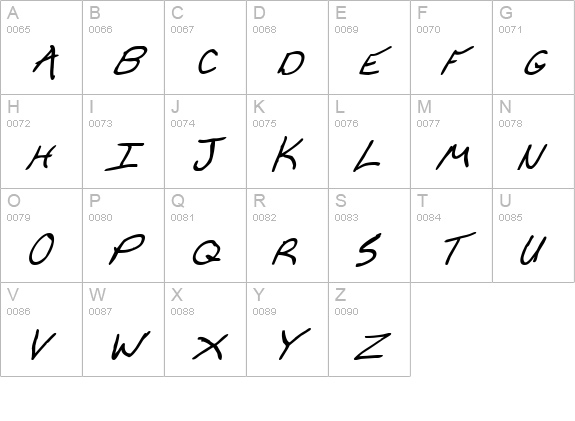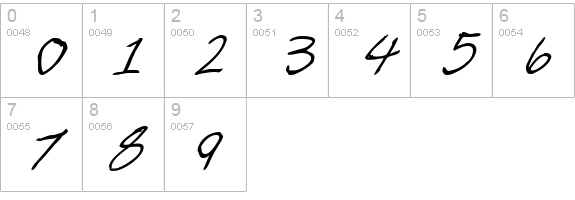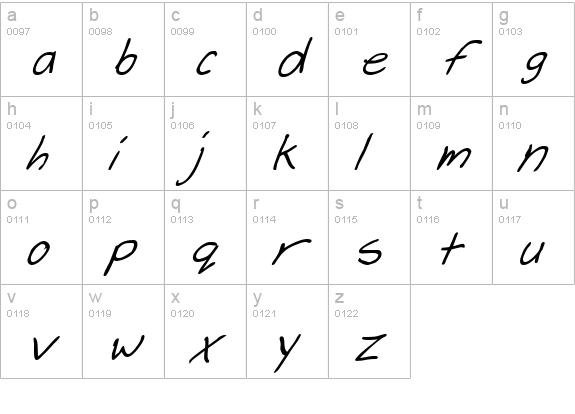
Cheyenne Hand Bold Italic is a strong, high-contrast, italic variant in the Cheyenne typeface family \xE2\x80\x94 well suited to headlines, attention-grabbing titles, and strong calls-to-action.
Cheyenne Hand Bold Italic font is a dynamic and modern typeface that exudes confidence and creativity. Its bold and slanted characters make a powerful statement on any design project, adding a touch of sophistication and flair. Whether used for headlines, logos, or social media graphics, Cheyenne Hand Bold Italic font demands attention and leaves a lasting impression. The best part is that Cheyenne Hand Bold Italic font is completely free to download at FontsMarket.com. This means you can elevate your designs without breaking the bank, making it an ideal choice for both professional designers and hobbyists alike. Don't miss out on this opportunity to enhance your creative projects with the distinct style of Cheyenne Hand Bold Italic font. Download it today and let your imagination run wild!